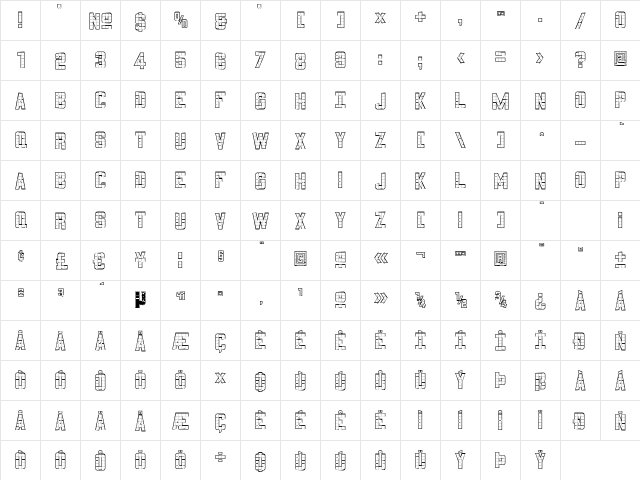
3x5 Outline
Design Context for 3x5 Typeface
3x5 brings ornamental detail and strong personality to headlines and identities, where visual impact matters more than quiet functionality.
Font Pairing: Pair with a clean neutral sans-serif for body copy to let 3x5's character lead without overwhelming the composition.
Pro Tip: Use 3x5 exclusively at display sizes — it was designed to be seen, not read at length. Let a neutral companion handle body copy.